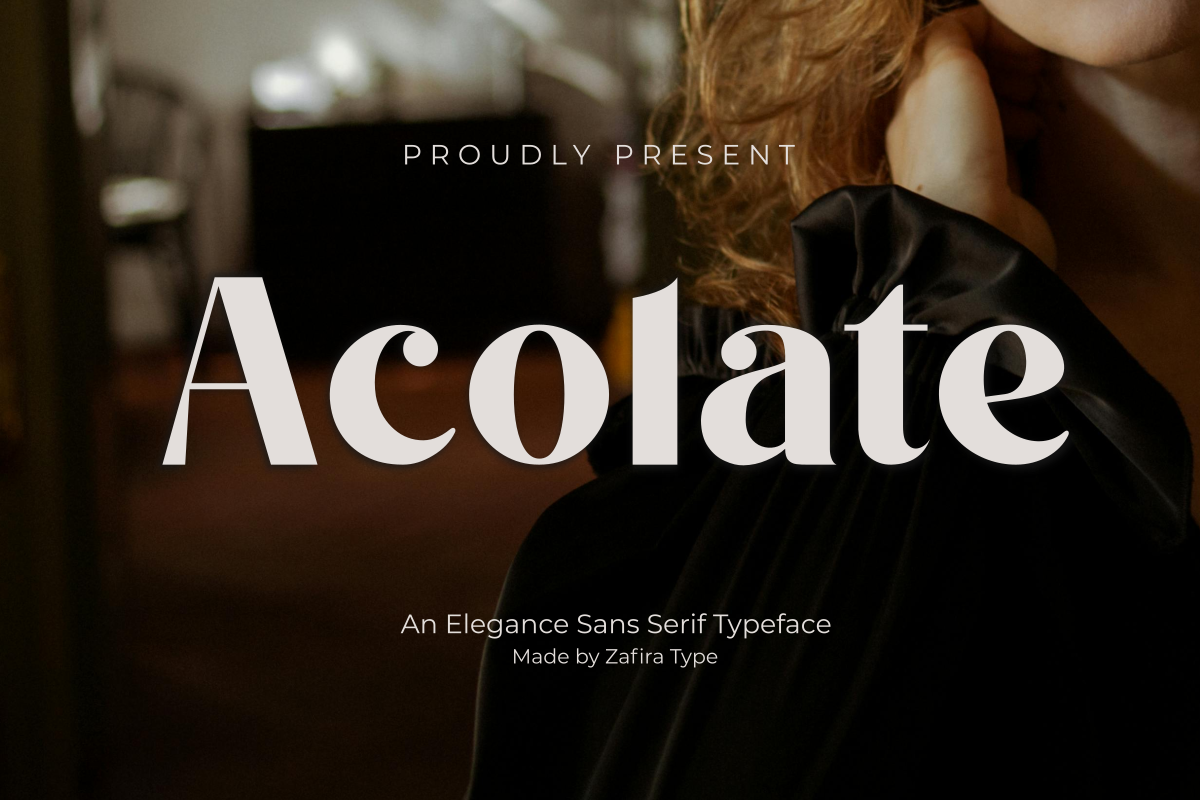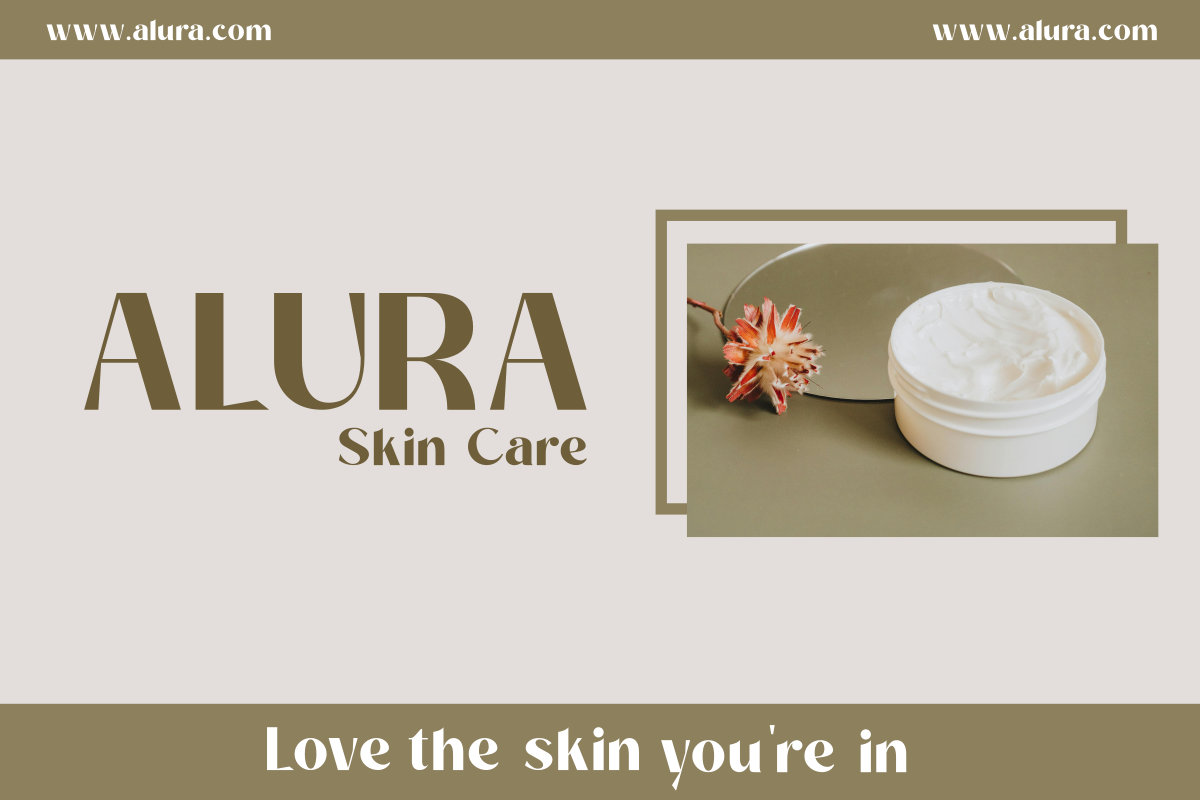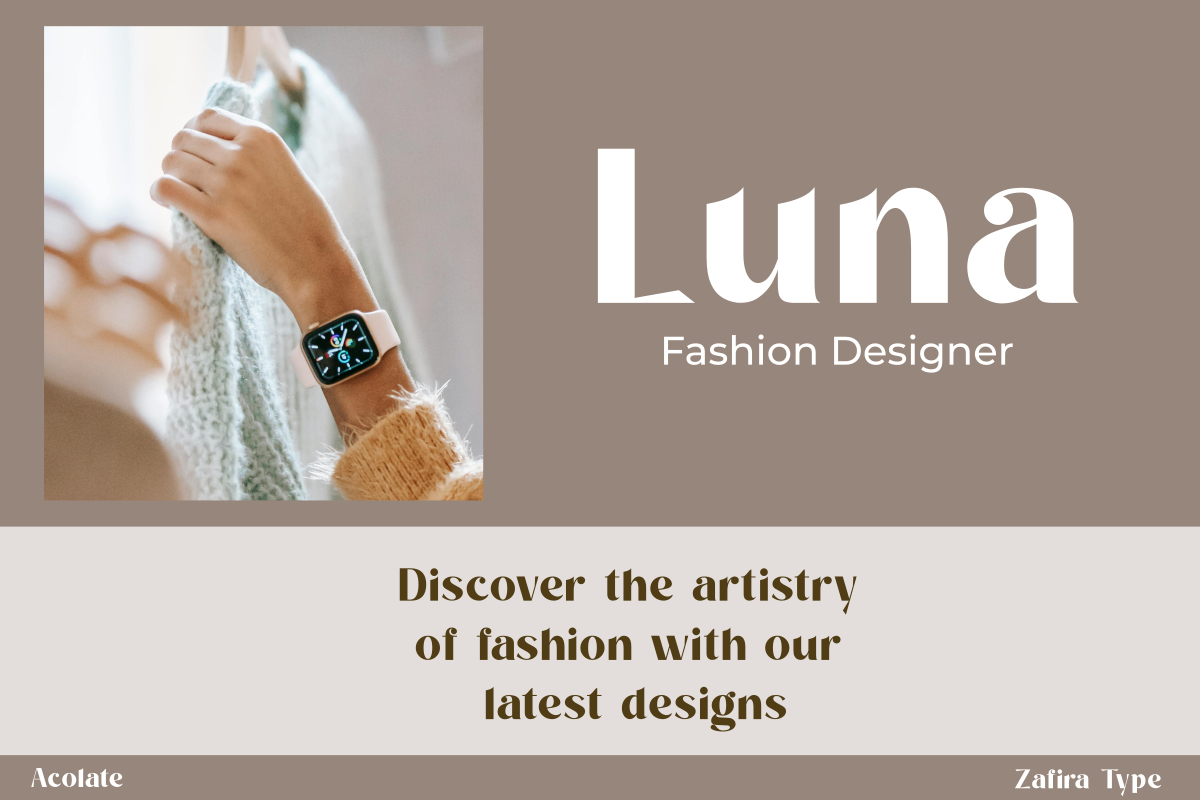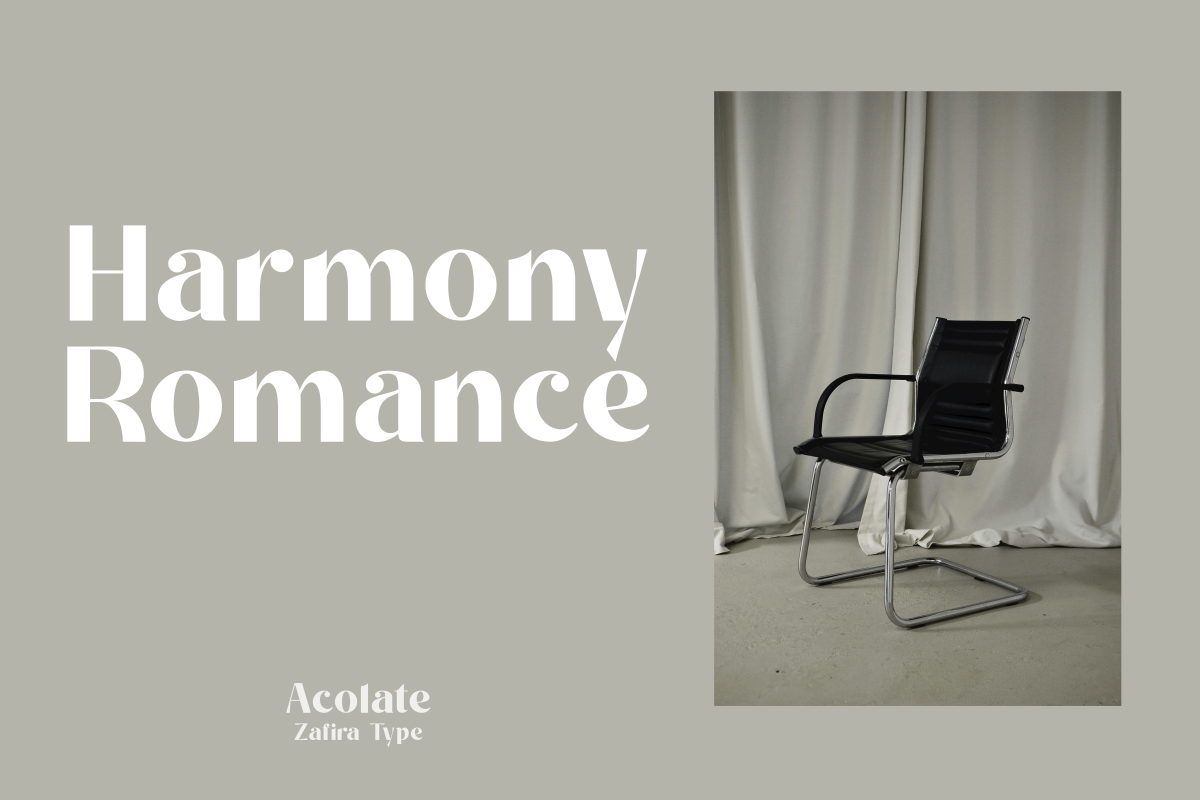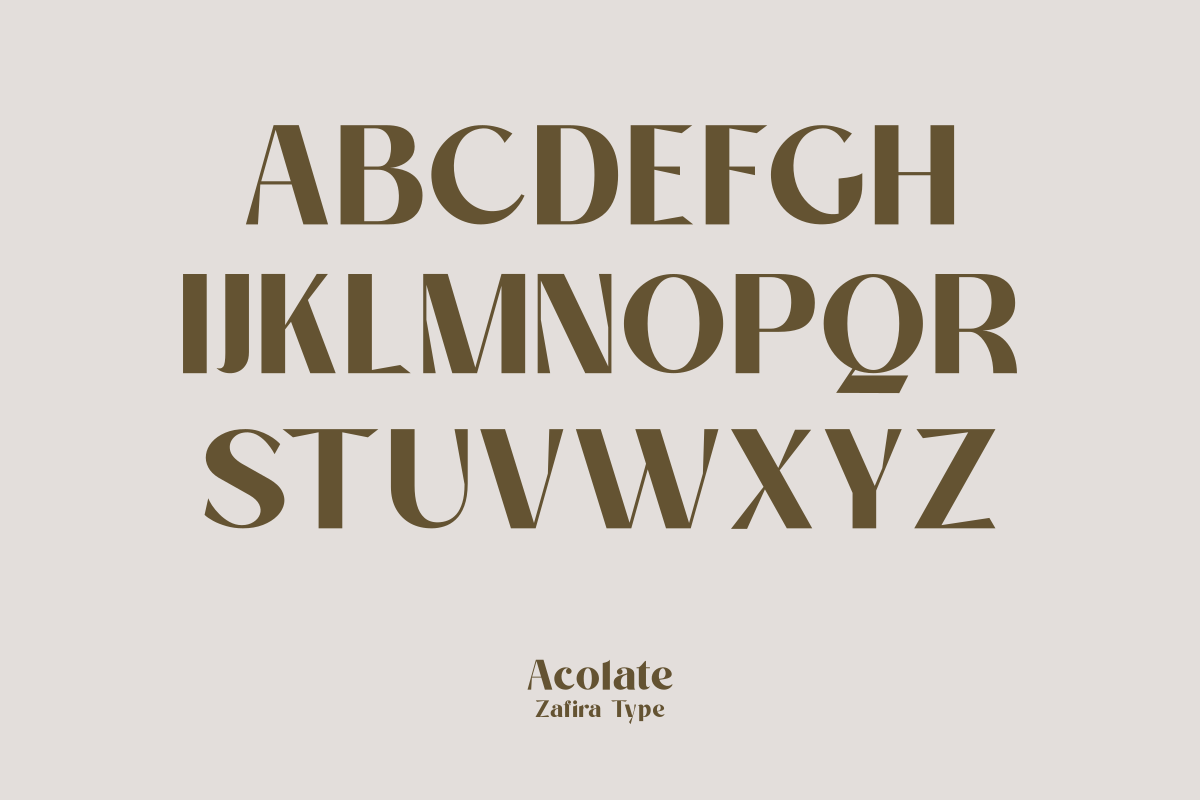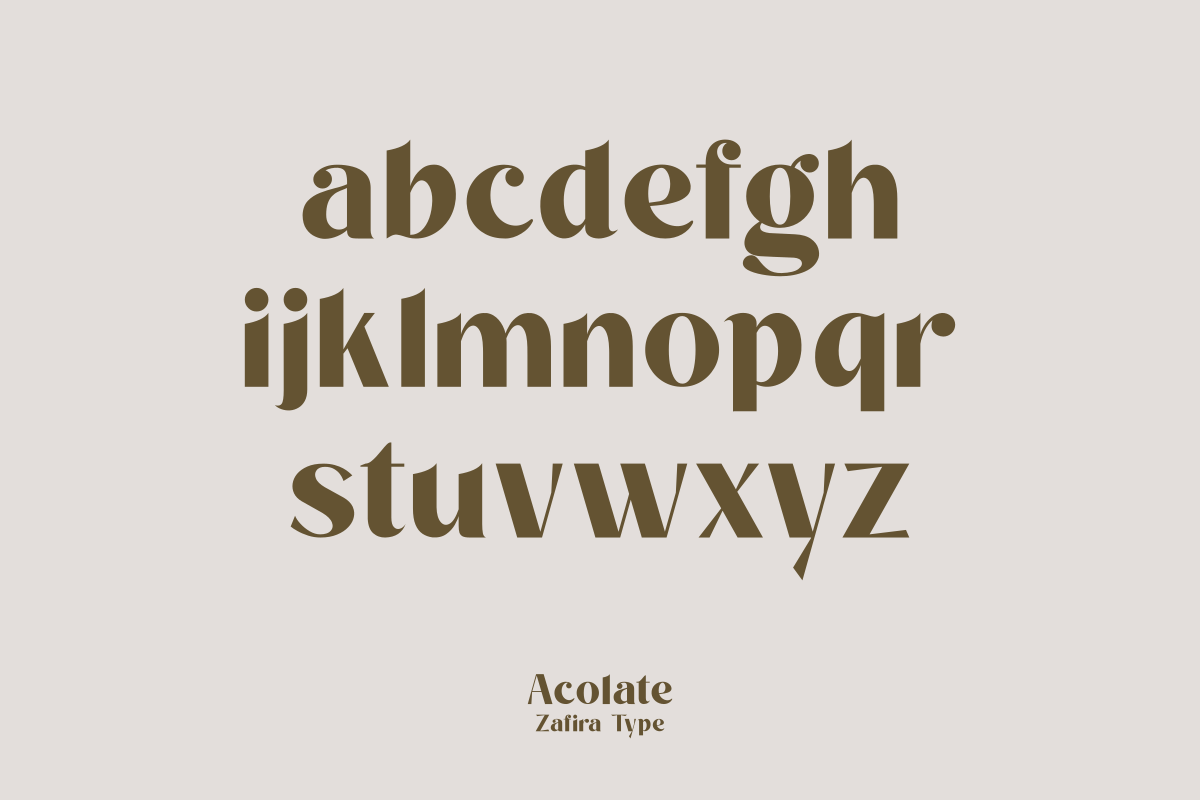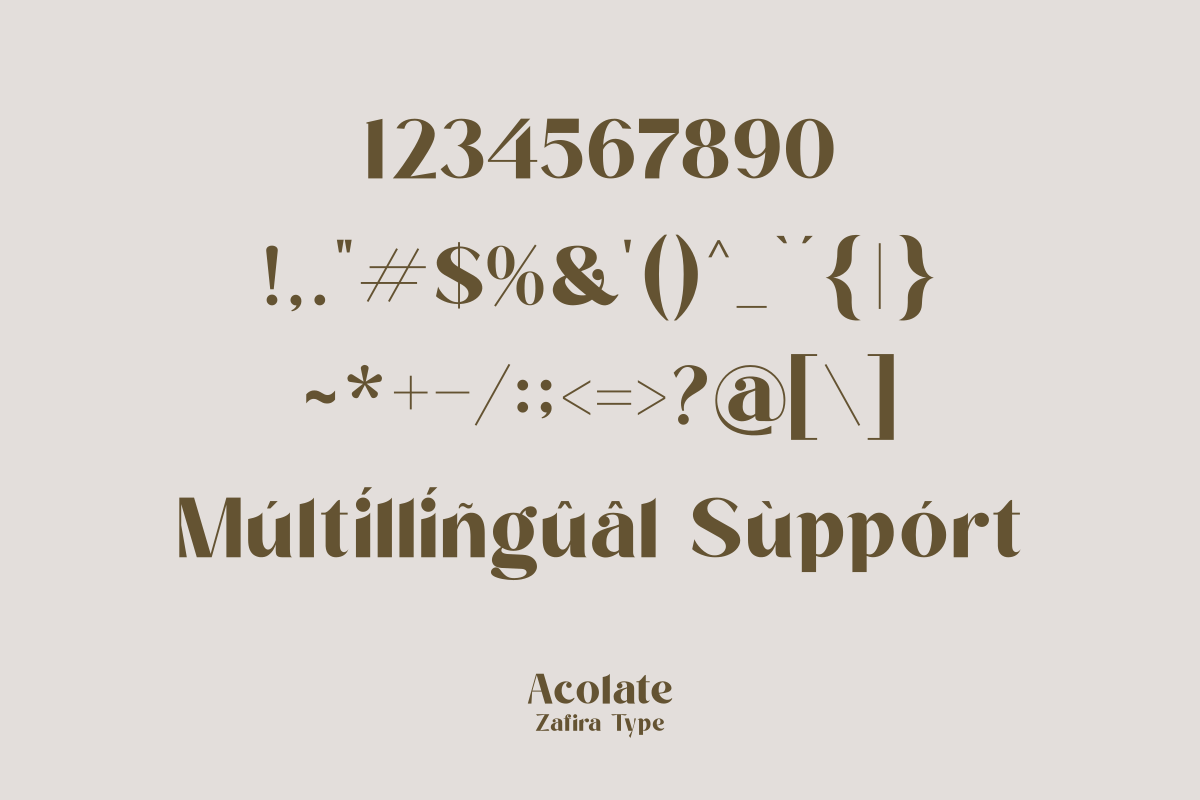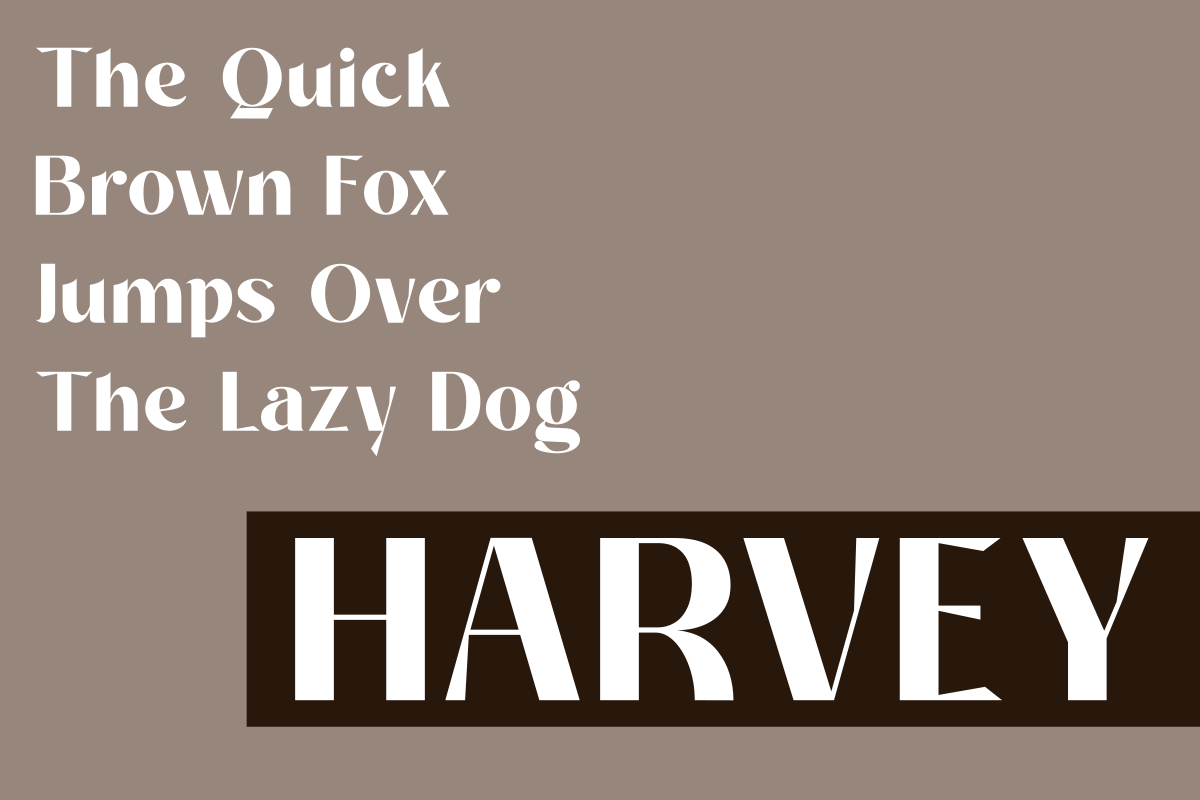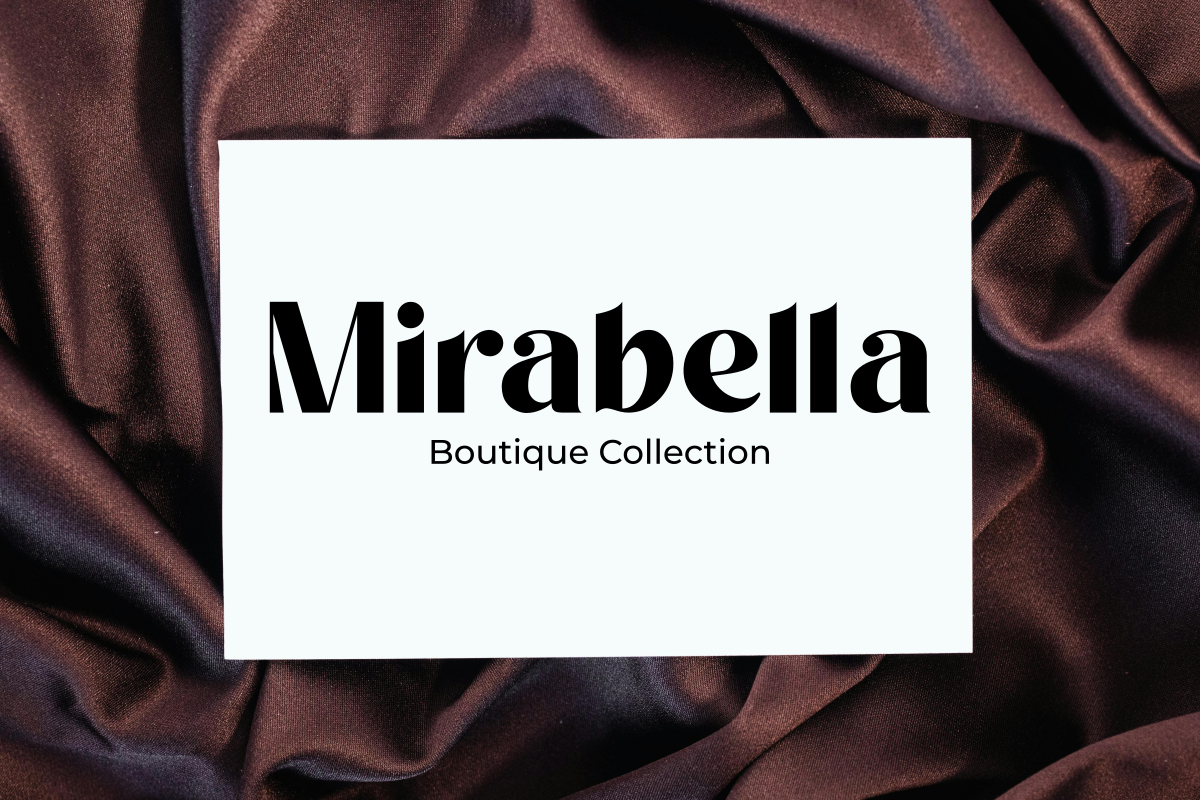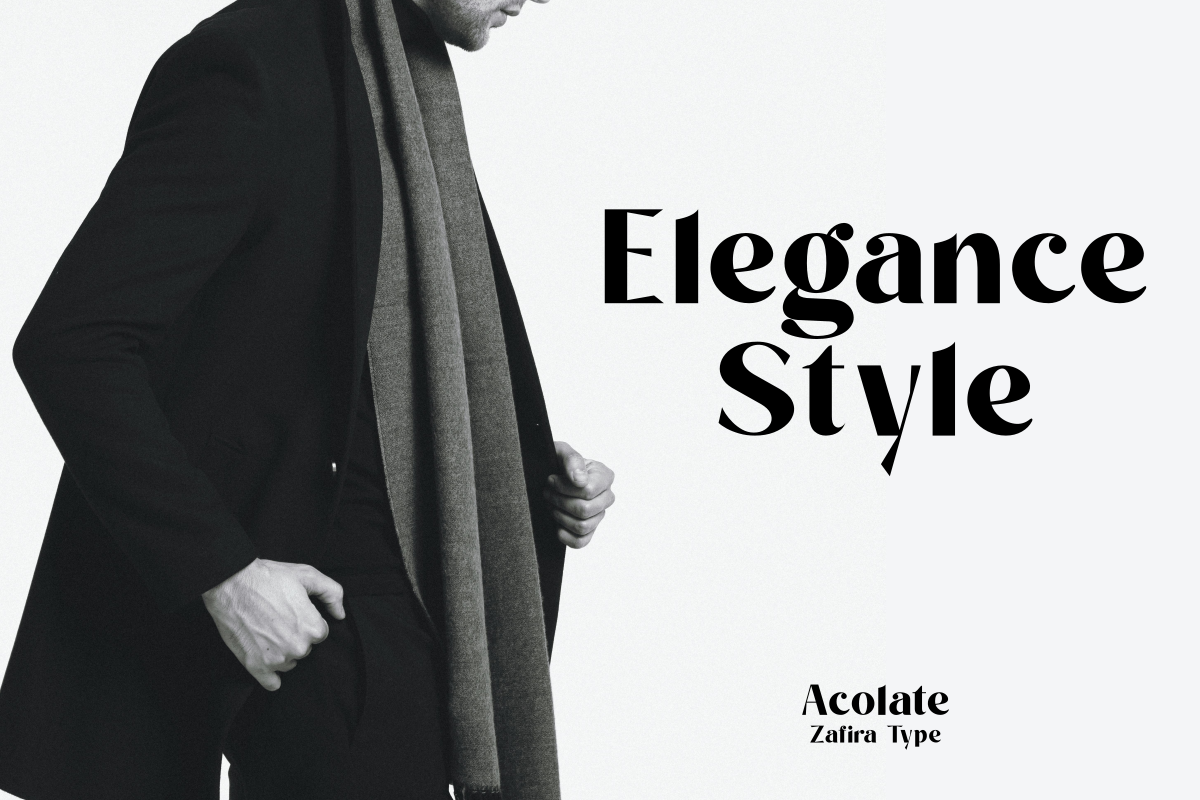
Acolate
Introducing Acolate, an exquisite, contemporary sans-serif font created with meticulous precision to deliver a refined and mesmerizing visual impact. With its amalgam of crisp lines and delicate curves, Acolate caters to an expansive spectrum of design requirements, from crafting compelling logos to generating standout promotional resources. Embodying a harmonious balance of aesthetic allure and practical adaptability, Acolate amplifies the calibre of your creative designs.